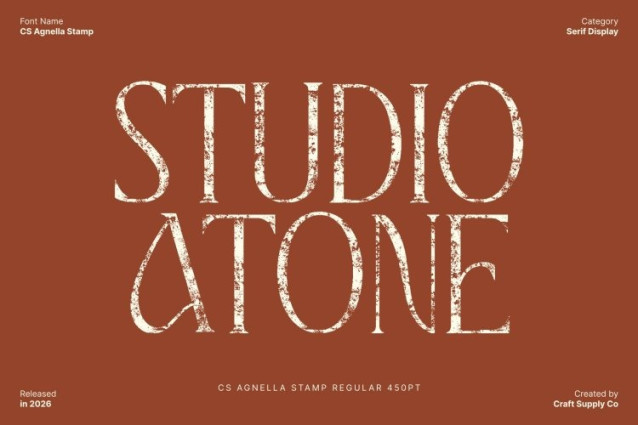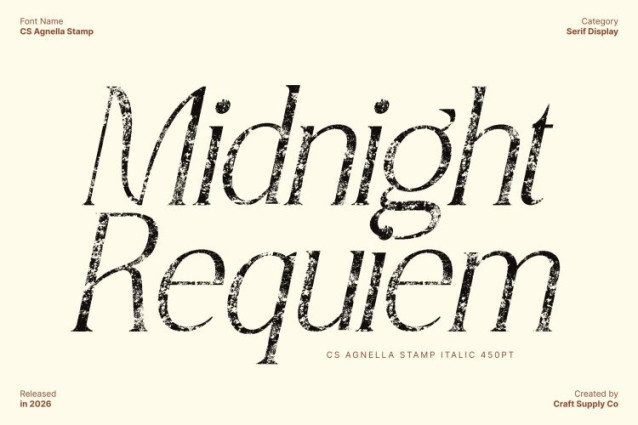
CS Agnella Stamp Font
CS Agnella Stamp Font This is an elegant serif font crafted to express sophistication, refinement, and timeless luxury. Its carefully designed letterforms feature balanced proportions and graceful construction, creating a high-end aesthetic that feels classic yet contemporary. Enhanced with a subtle stamp texture, the font gains added depth and character while maintaining its polished elegance.
Refined Curves with Textured Elegance
The defining beauty of this font lies in its refined curves and smooth stroke transitions. Each letter flows harmoniously, creating a soft and luxurious visual rhythm. The stamped effect introduces gentle imperfections that add artistic warmth and tactile richness, giving the font a distinctive personality without compromising its refined appearance.
Classic Foundations with Modern Versatility
This font bridges traditional serif elegance with modern design sensibilities. Its timeless structure ensures it performs beautifully in classic editorial layouts, while the textured finish adds contemporary relevance and visual interest. This balance makes the font feel authoritative, stylish, and adaptable across both print and digital applications.
Perfect for Luxury Branding and Editorial Design
Ideal for books, fashion branding, editorial layouts, packaging, and premium marketing materials, this font elevates every composition with elegance and distinction. Its refined serif forms combined with an artistic stamp texture create a unique luxury presence, making headlines, logos, and body text feel exclusive, expressive, and memorable.